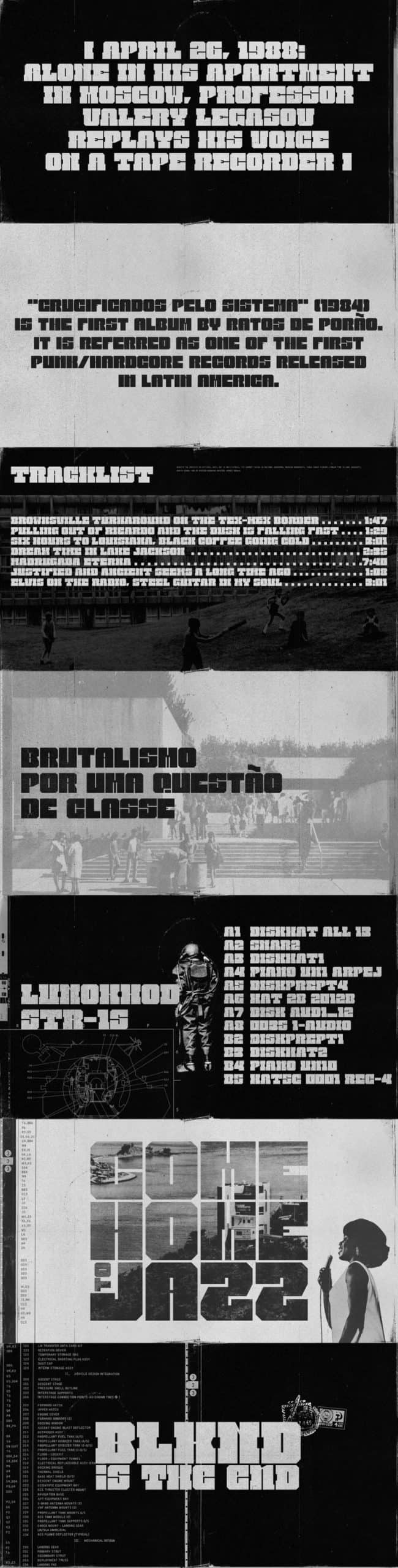
Blkmd Display Font is a display typeface that embraces the mid century feeling. This typeface is a new font created by Rafael Nascimento. It features 2 styles – Slab Serif & Sans and is perfect for big display purposes like headlines, posters, album covers & much more. It is inspired by Letraset, eccentric designs, brutalist architecture and times of reclusion.